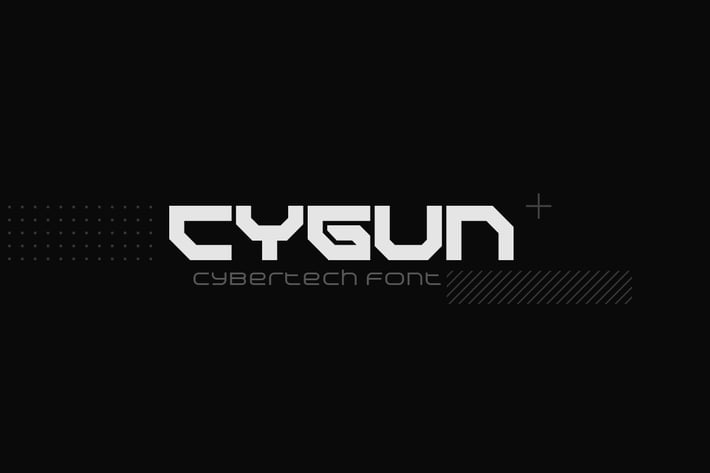
CYGUN Font
CYGUN is font which helping to create hi-tech cyberpunk and futuristic atmosphere and style.
It is good looking as header and as text both.
Use it in your projects in such areas as robots&androids, cyberpunk, hi-tech, future, virtual reality, space, army, games and many others.